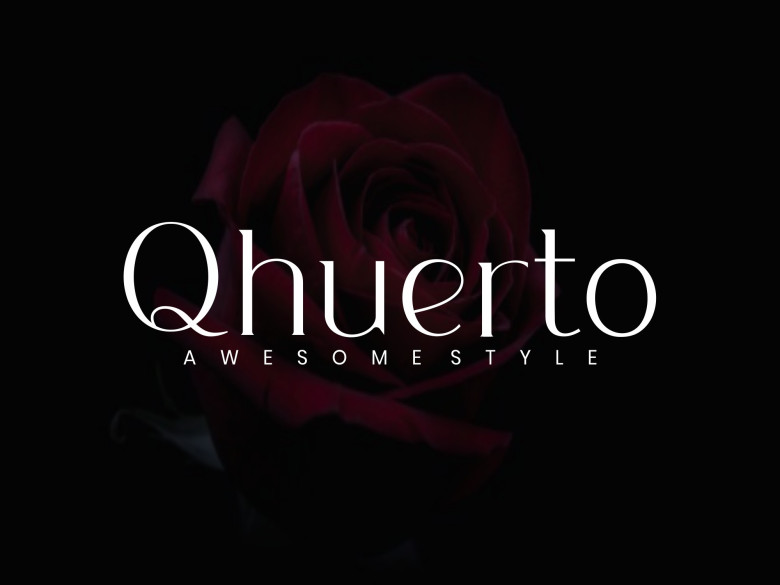
Qhuerto Font
Introducing Qhuerto, a simple and modern serif font. So perfect for you who needs a typeface for logo designs, magazine, social media, brochure, and many more.
Qhuerto Serif Font